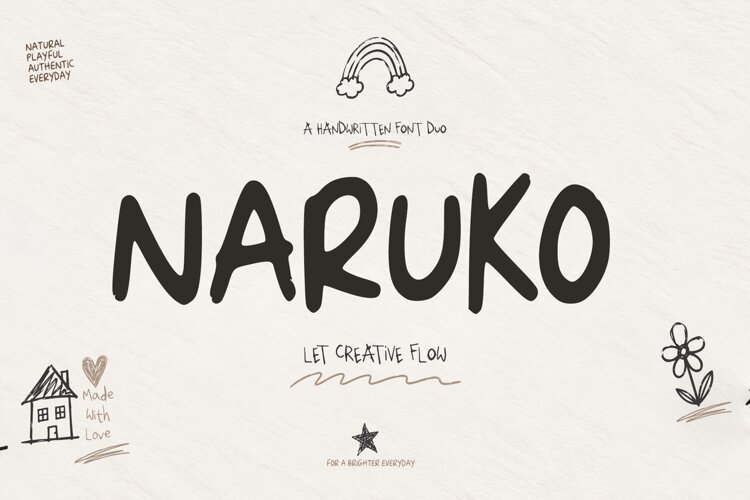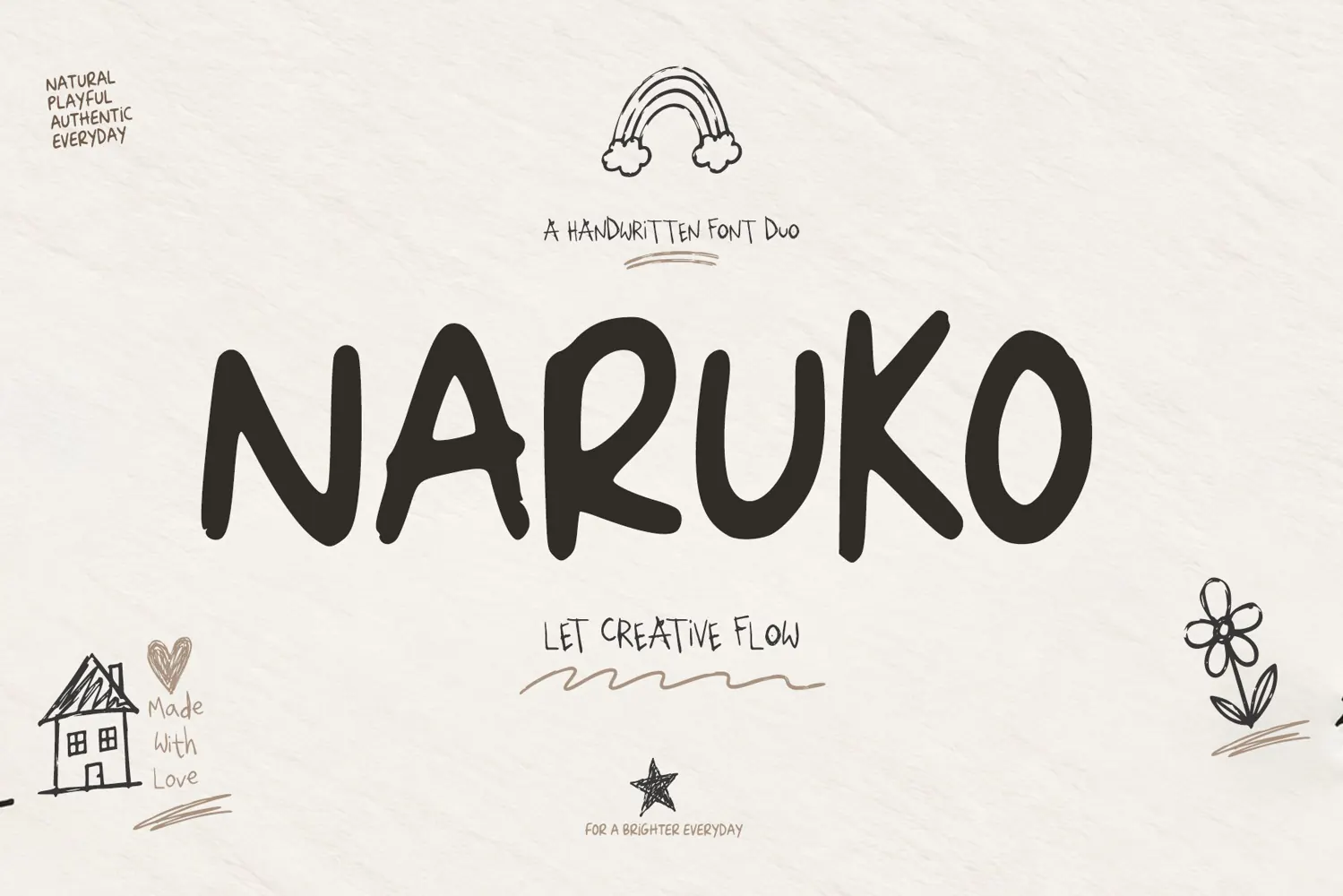
Simple stylish
Naruko is a playful handwritten display font with bold, organic letterforms and a natural hand-drawn character. Its slightly irregular shapes and expressive strokes create a warm, creative, and casual look while maintaining strong readability.
Designed to bring a handmade touch to a wide variety of creative projects, Naruko works beautifully for branding, logos, apparel, packaging, posters, stickers, stationery, invitations, greeting cards, social media graphics, quotes, children’s designs, and crafts.